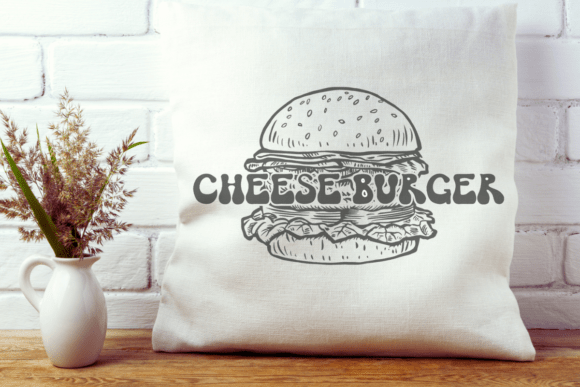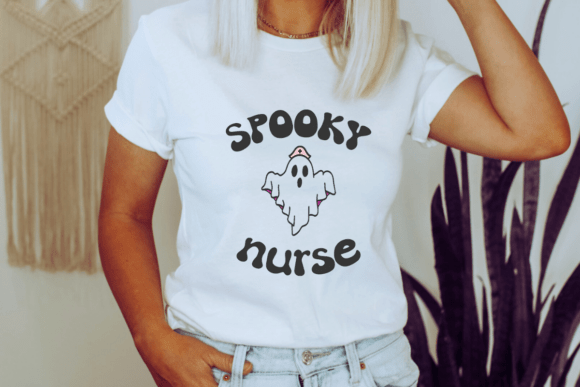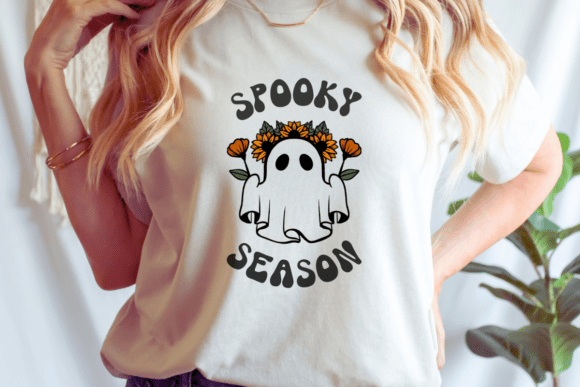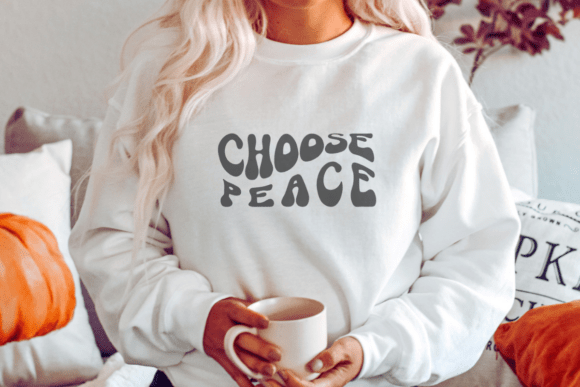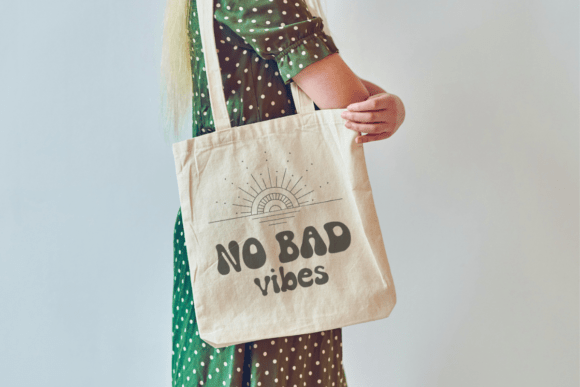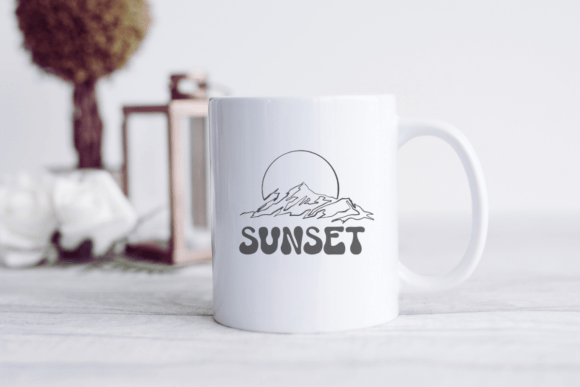
Introduction to Midnight Summer Font
Do you ever find yourself rummaging through your grandmother’s attic, uncovering vintage treasures that spark a flood of creative ideas? For designers, that moment of discovery can be the perfect catalyst for a new project. Imagine stumbling upon a dusty old record player, its groovy album covers beckoning you to bring their retro charm to life. That’s exactly what the Midnight Summer Font can help you achieve.
This high-quality, bold typeface is a design resource that’s sure to transport your creative projects to a bygone era. With its unique, bubbly letterforms and funky shapes, the Midnight Summer Font is the perfect addition to any summer party theme, retro aesthetic, or fun typography project. And the best part? It’s fully compatible with a range of design software, making it a valuable asset for any designer looking to elevate their work with a lively, creative touch.
Whether you’re looking to create eye-catching social media graphics, vibrant T-shirts, or stunning invitations, the Midnight Summer Font is a must-have design element. With its transparent background and high-quality design, you can rest assured that your project will look its best. And the best part? It’s available for free download, making it an accessible and affordable addition to your design toolkit.
Key Features of Midnight Summer Font
- High-quality design resource ideal for creative projects, including posters, flyers, and social media graphics.
- Unique and stylish design, perfect for adding a touch of sophistication to any creative project.
Honest Review: Midnight Summer Font
I recently stumbled upon the Midnight Summer Font while searching for a design resource to enhance my creative project. The first thing that caught my attention was the font’s unique and elegant design.
- ✨ High-quality design that’s perfect for creative projects.
- ✨ Transparent background, allowing for seamless integration into various design elements.
- ⚠️ Limited customization options, which might not be suitable for designers who prefer more control over their fonts.
- ⚠️ Some users may find the font’s style a bit too minimalist, which could be a drawback for those who prefer bolder typography.
Overall, I’m impressed with the Midnight Summer Font’s design and versatility. While it may have some limitations, it’s still a valuable addition to any designer’s toolkit. I would definitely recommend it to anyone looking for a high-quality font for their creative project.
The Midnight Summer Font is suitable for various design projects, including:
- Invitations and event cards
- Wedding stationery and decor
- Summer-themed merchandise and branding
Getting the Most Out of Midnight Summer Font
To get the most out of the Midnight Summer Font, use it in conjunction with other design elements, such as images and graphics, to create a cohesive and visually appealing design. Experiment with different font sizes, styles, and colors to achieve the desired effect.